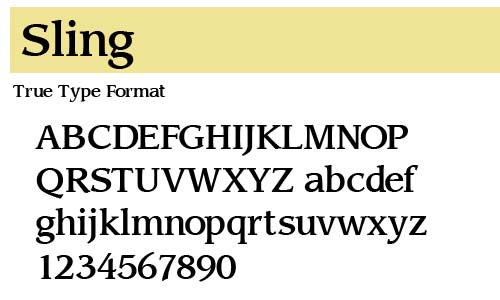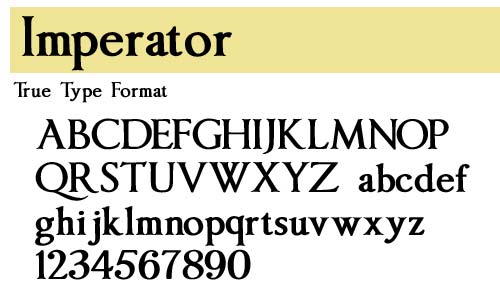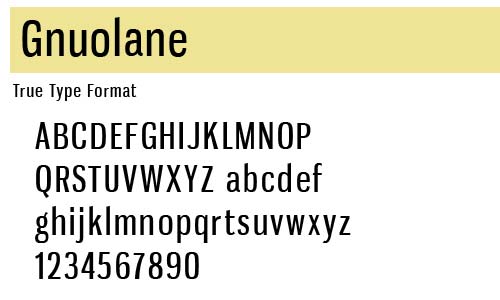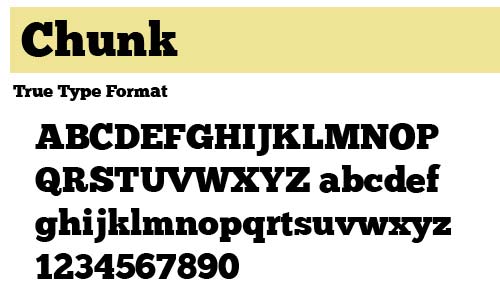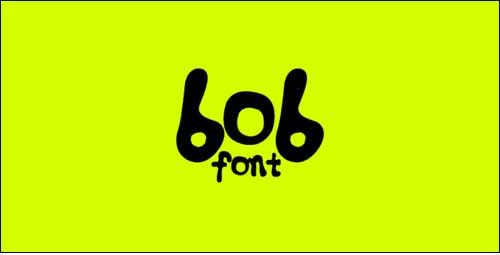
To spice up your design, high quality fonts play a crucial role. You will be amazed to know that you can find a large number of high quality font that are totally free of cost. No matter if you are a pro or a newbie designer, typography plays a very important role in the better quality of your design.
Today, we have collected 225+ Best High Quality Free Fonts for commercial use. In the following list, you will find font that will suite your design and obviously for free.
Archivo
Archivo Narrow was designed to be used simultaneously in print and digital platforms. The technical and aesthetic characteristics of this typeface are both crafted for high performance typography.
Bergamo Std
Odin Rounded Free Font Download
Odin Rounded is a free experimental font family with a clean and linear appearance.
The simple compact nature of the design and the many alternates allows for great economy of space across layouts.
It supports upper/lowercase, kerning and open type features.
Nilland Black
Homizio Nova Free Font Download
CartoGothic Std
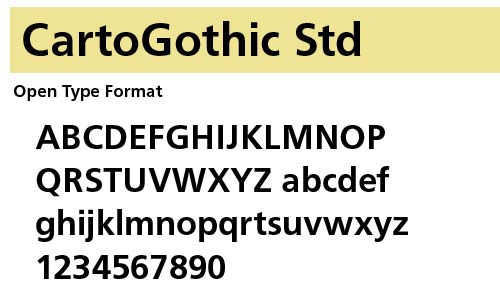
Barokah – Free Handwritten Font Download
Barokah is a free uppercase and lowercase display handwriting inspired by the comic sans.
This typeface is, because of his many alternative options and weights, perfect for usage in comic, poster, magazine and headlines.
Headline
Designed for use in headlines, it comes in two styles in the true type format.
Free Font Download : Contemporary Geometric Sans Serif
Back in the days when he was a student, Portuguese graphic and type designer Natanael Gama started to play with glyphs — as a way to discover typography.
Doodling around, he created Exo, a font which he released for free in a Kick-starter project.
The project turned out to be quite successful.
Exo became so popular that Natanael did a complete redesign.
Alte Haas Grotesk
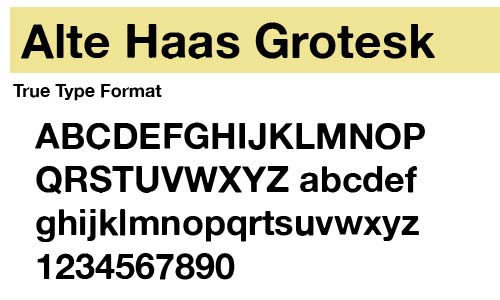
Free Font – Sequoia Stained Glass Handset
Contra
Free Font – Porto
Porto was born to be part of a logo design but it didn’t turn to be what was needed, any way,
I thought it was so gorgeous that I couldn’t old it in a file that would probably be lost in time.
So this is what I propose to everyone who likes it!
Figa Free Font
Figa is a display font designed by Pier Paolo.
Diavlo Bold
Nauman Regular – FREE FONT
A modern humanist sans-serif made for the screen. Broad open letter forms are combined with precise geometry to create a functional and legible font that’s ideally suited to the web and on-screen applications. Details include over 800 characters with alternative lowercase a, e, I and M. 7 variations of numerals, true small caps with accents, manually edited kerning and Opentype features.
Qlassik
Darect Free Font (Free Ai, fully editable)
Chùcara
Shade Free Font
Fontin Sans
RighOn / Free Font
I needed a typeface that could cover deface365’s orientation connecting the historical typography with something unique, future glam & Greek (or Roman) point of view.
Bebas
LAZER ADDIKTZ Typeface | FREE FONT
Lazer Addiktz Typeface is an all lowercase futuristic style font containing both alphabet and numbers. This brand new typeface will compliment any application that oozes digital or retro finesse.
Romeral
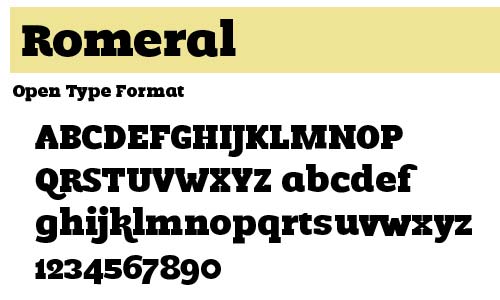
Dancing Script OT Free Handwirtten Font
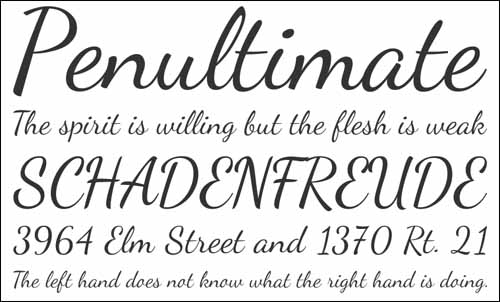
Walkway Black
Journal Free Handwirtten Font
Arial Black
Exans – Free Font Download
Exans is a personal project, my first experiment to create a typeface.
Old London
Dekar Free Font
Dekar free font is applicable for any type of graphic design – web, print, motion graphics etc and perfect for t-shirts and other items like posters, logos.
«zwodrei» Free Font
FF Celeste Sans Offc Black Set